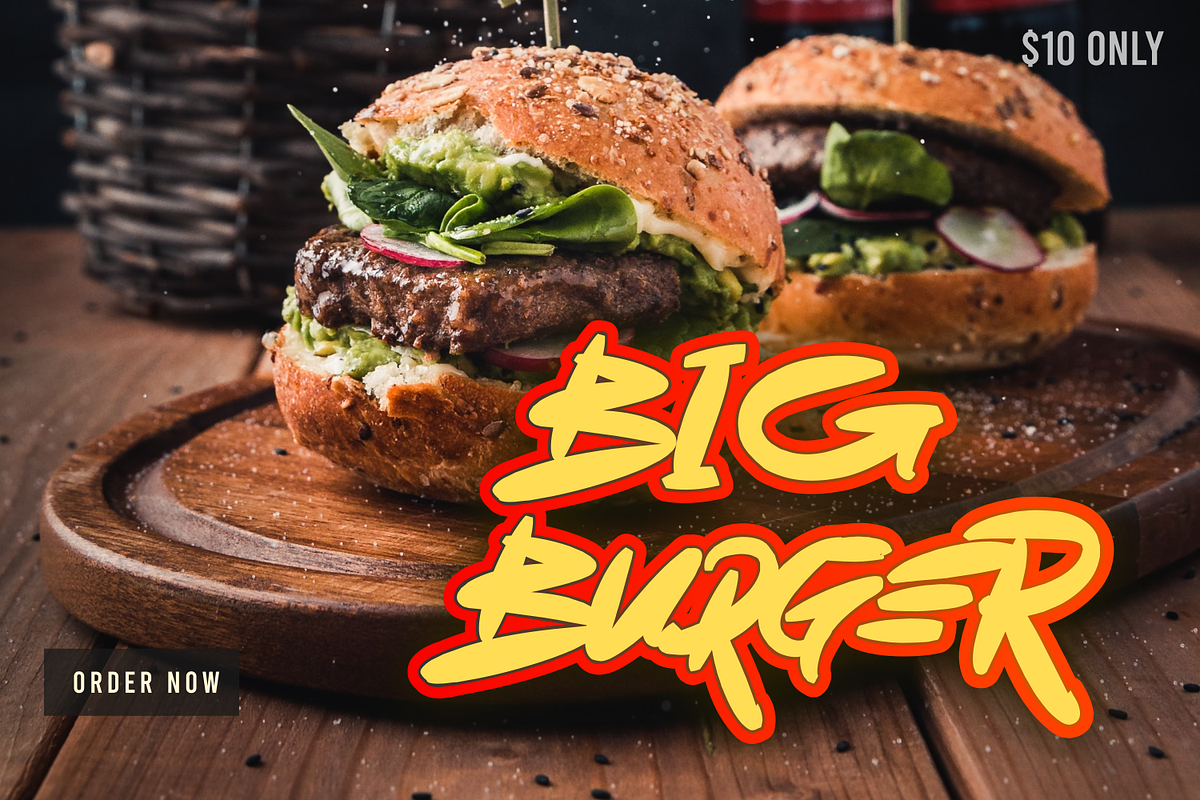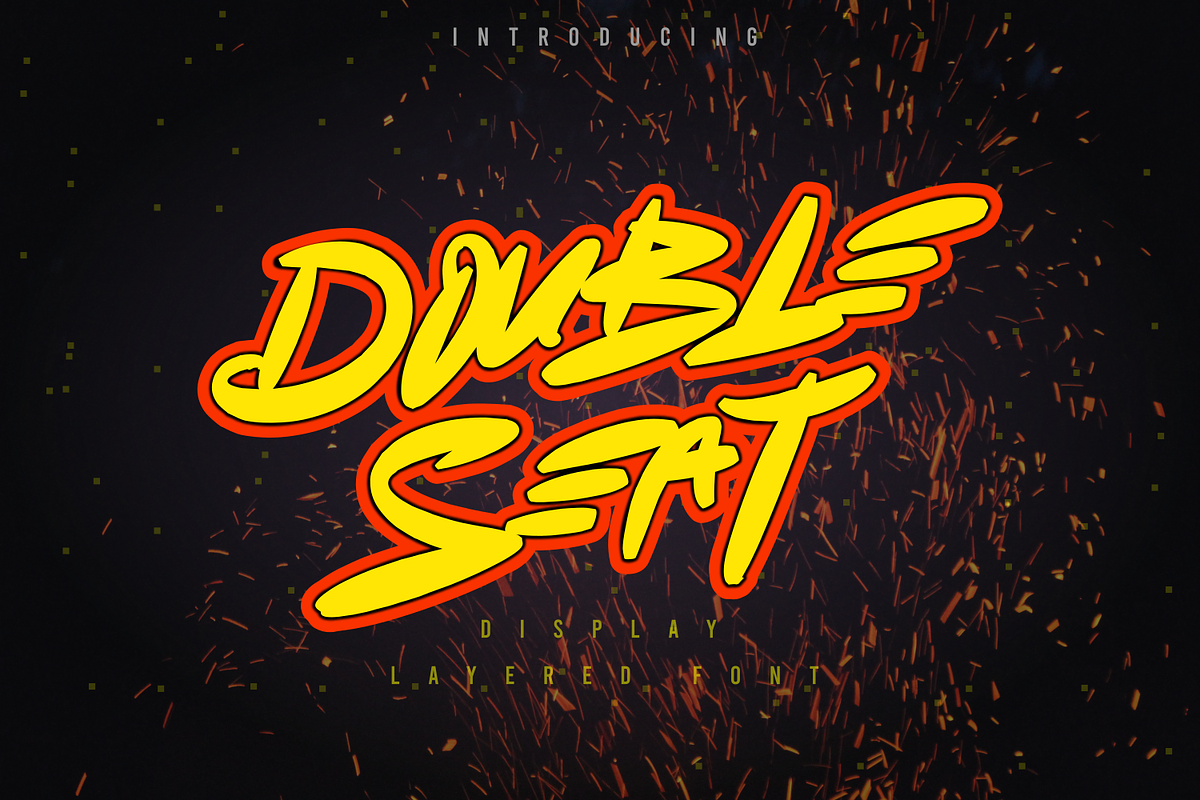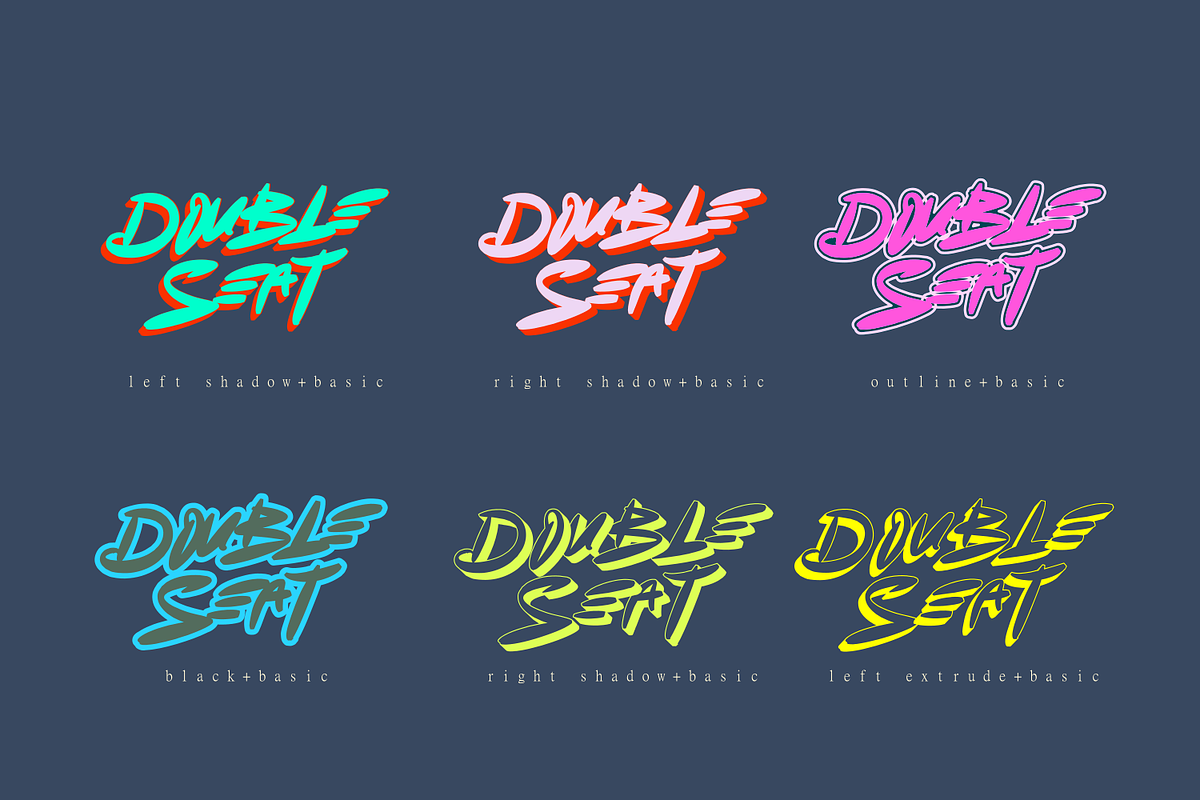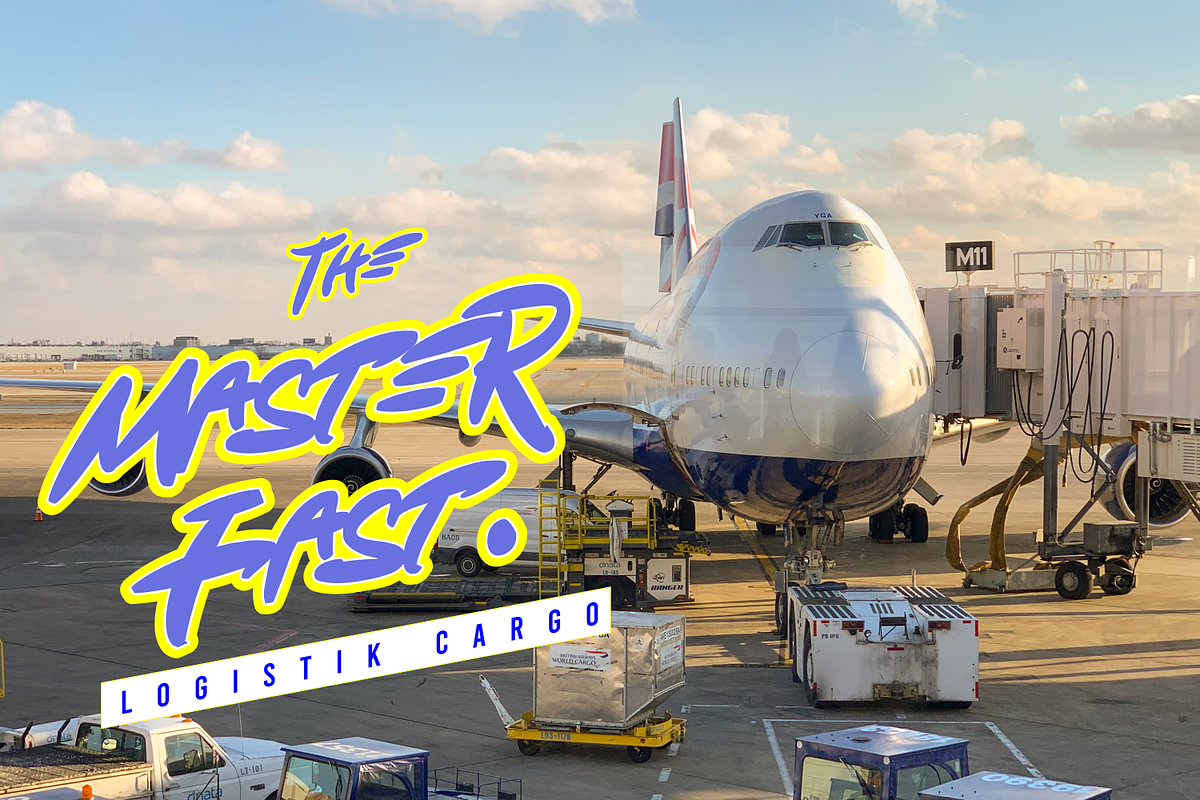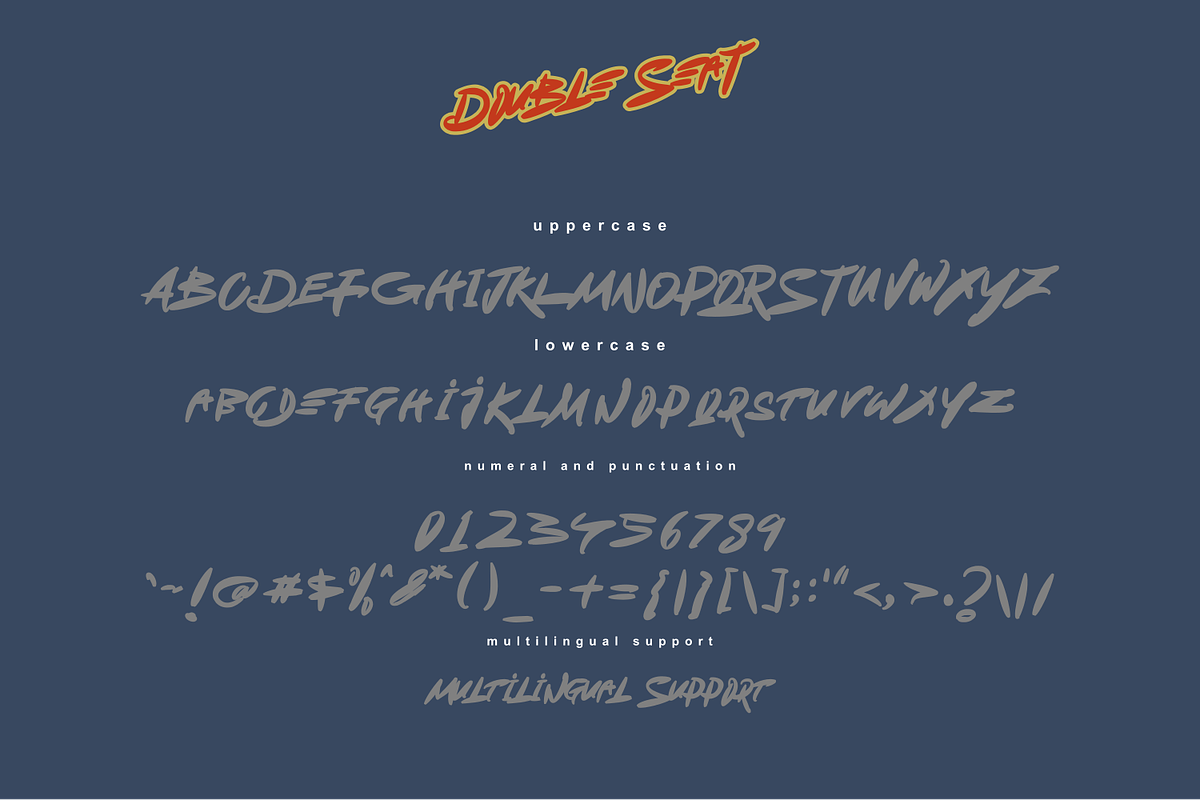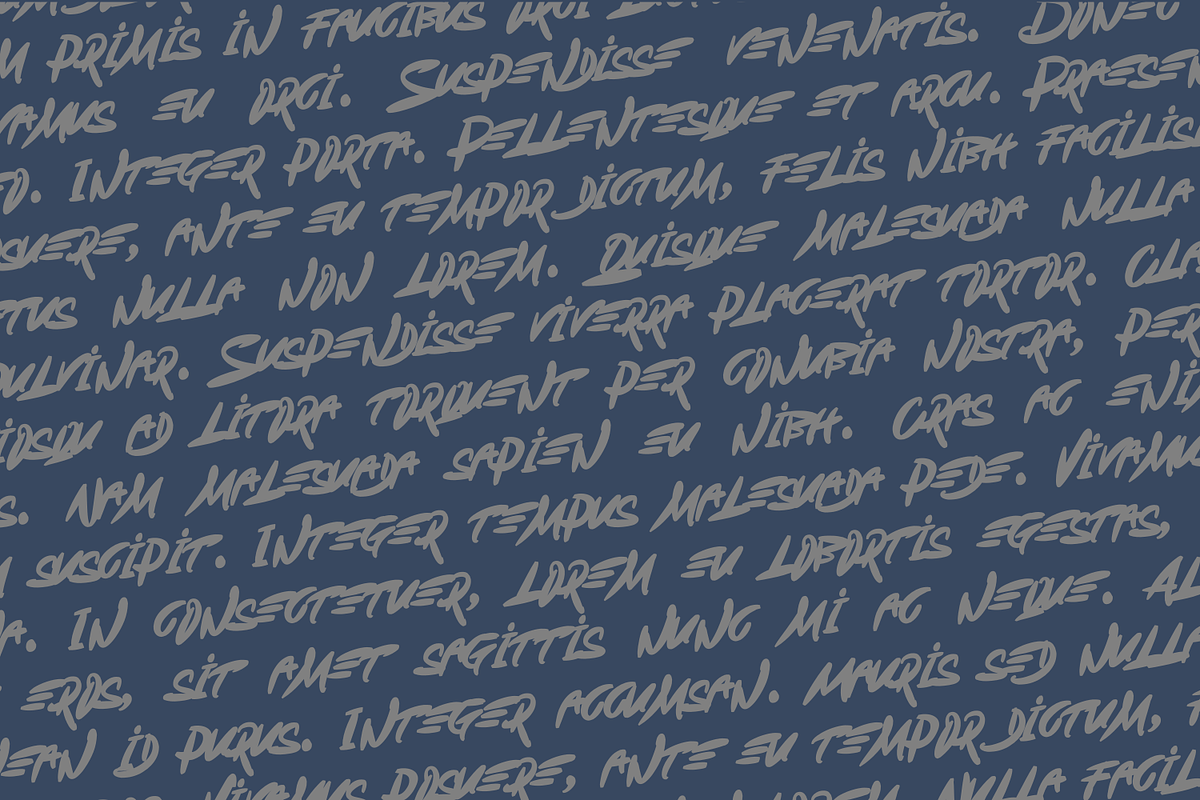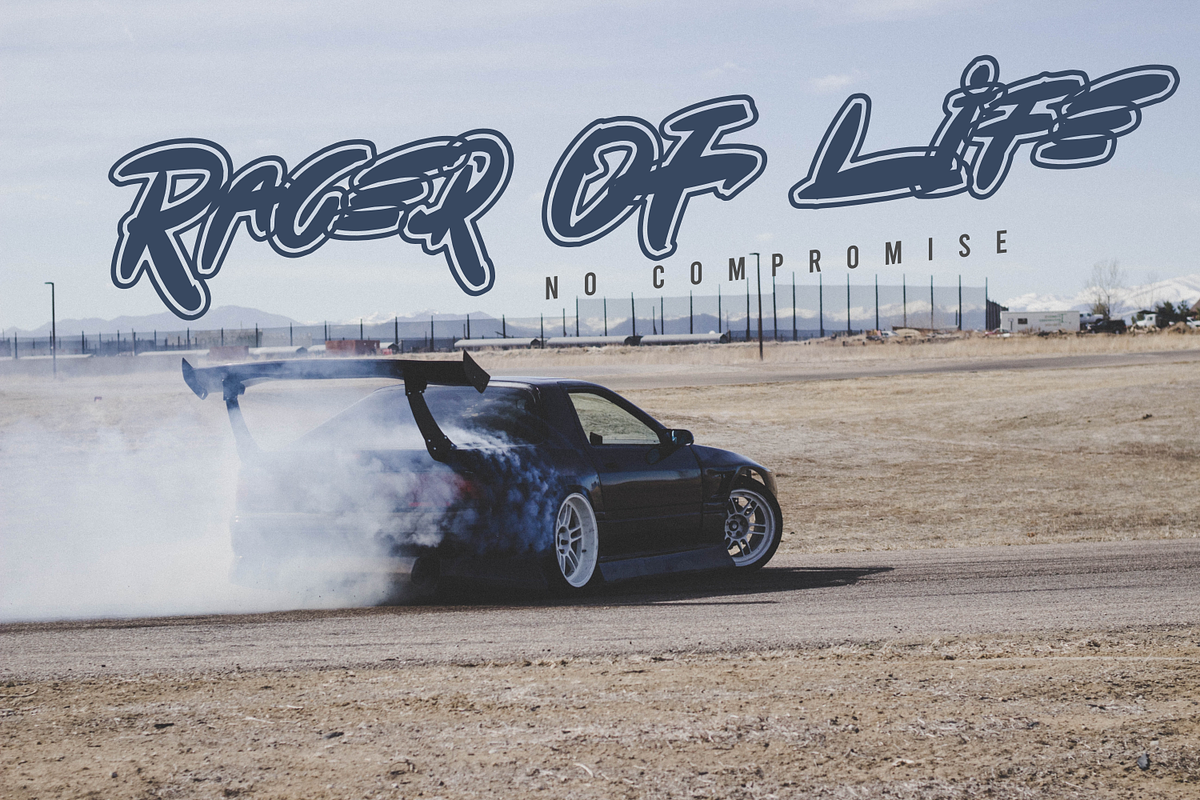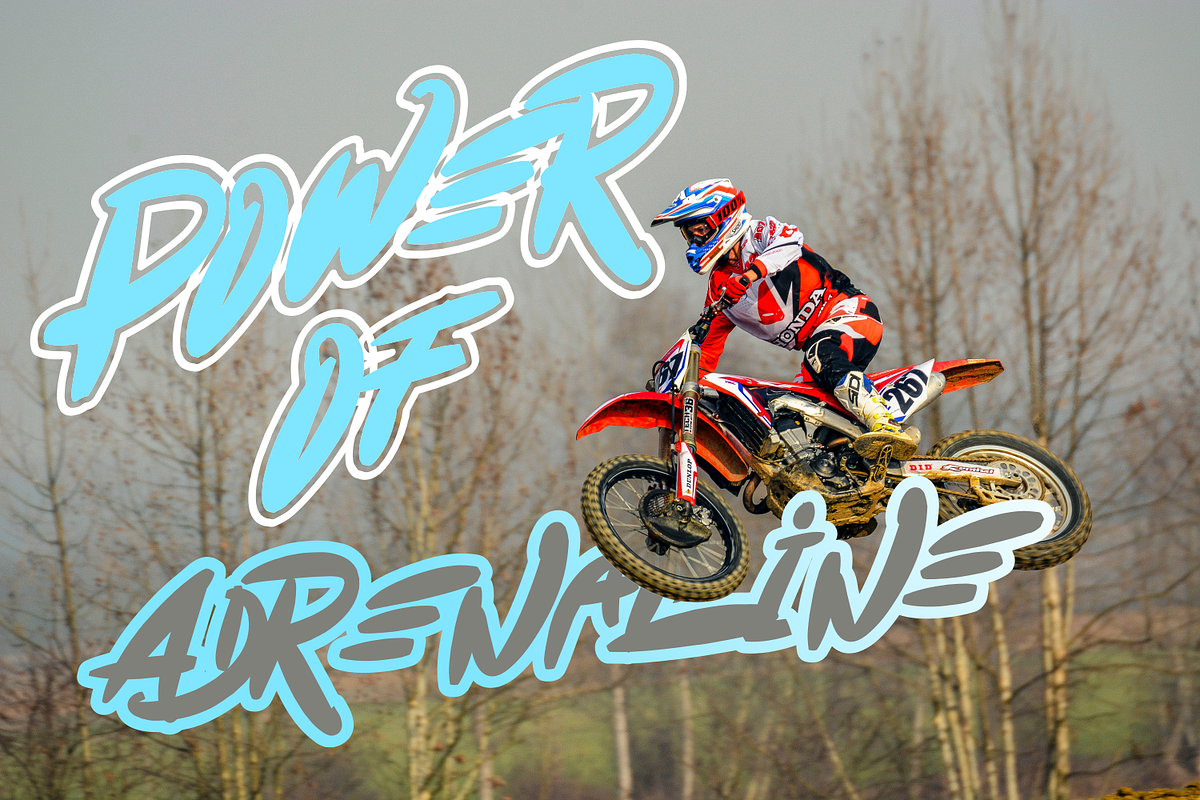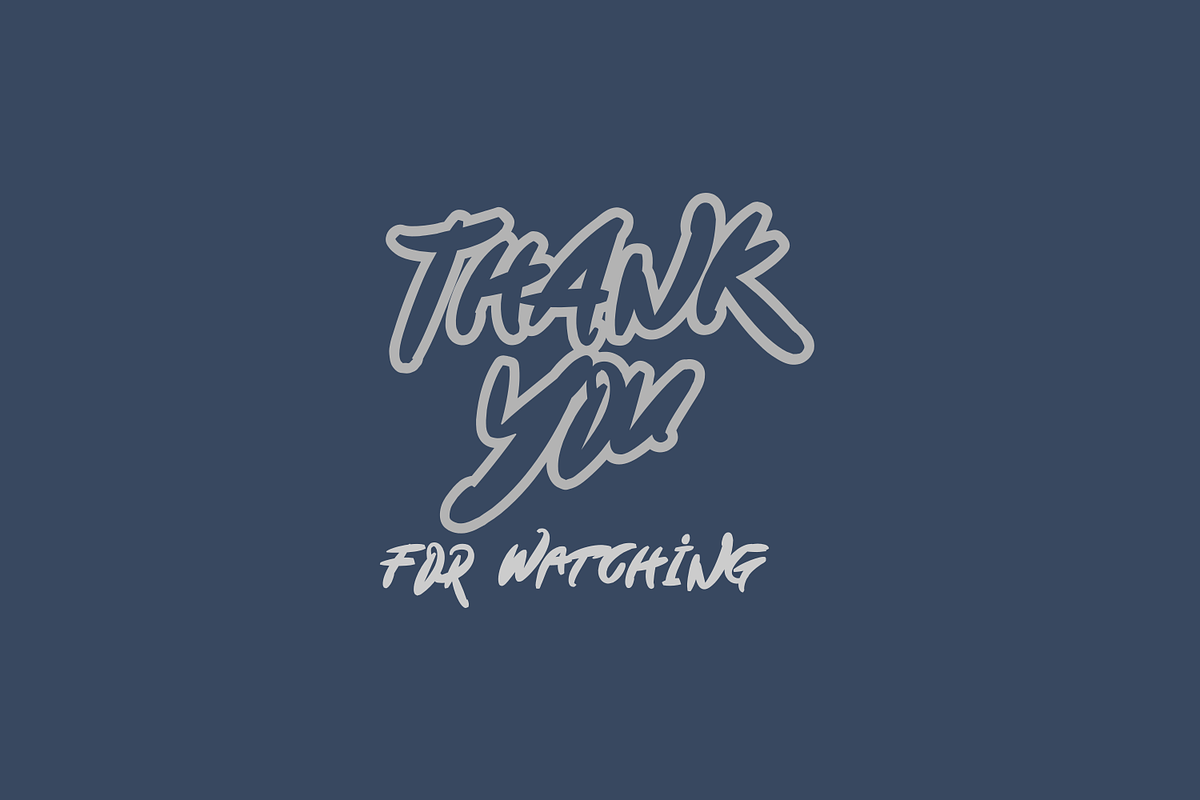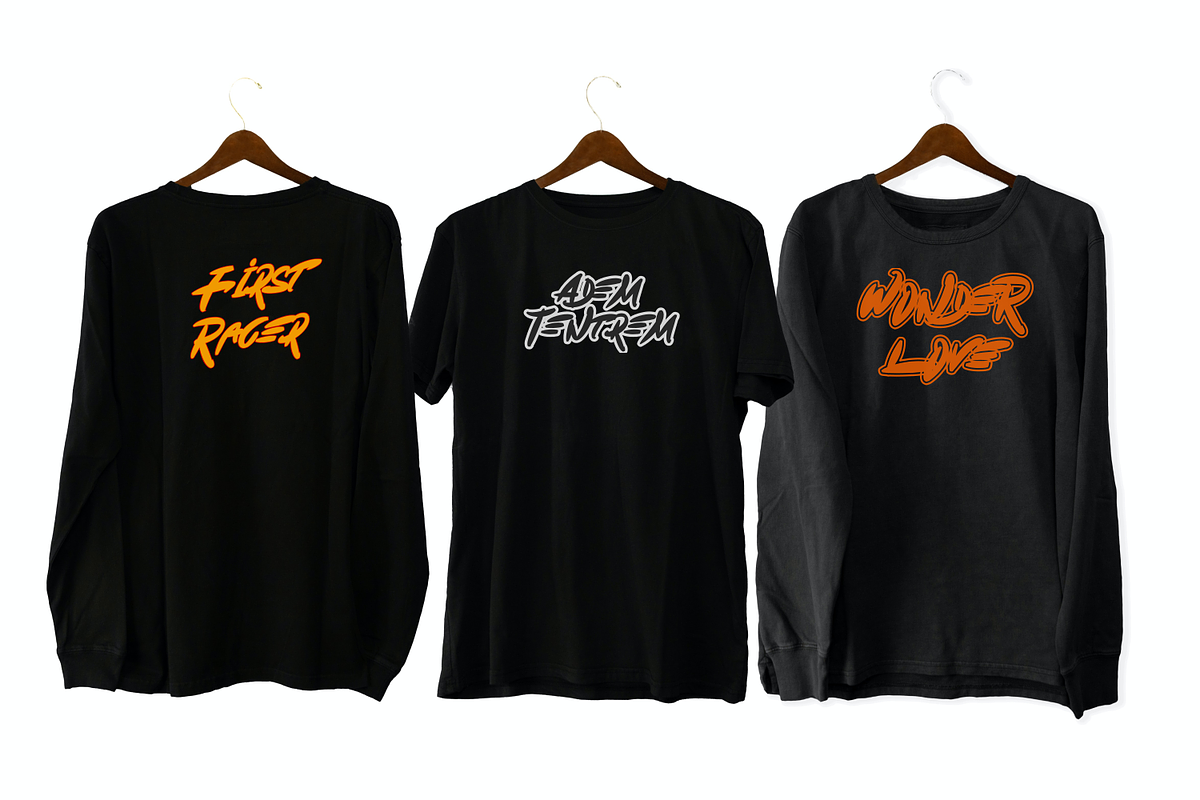
Double Seat
Double Seat is a bold, graffiti-styled display font that has a street art vibe. This font is suitable for designs such as t-shirts, sportswear, logos, advertisements, clothing, and more.